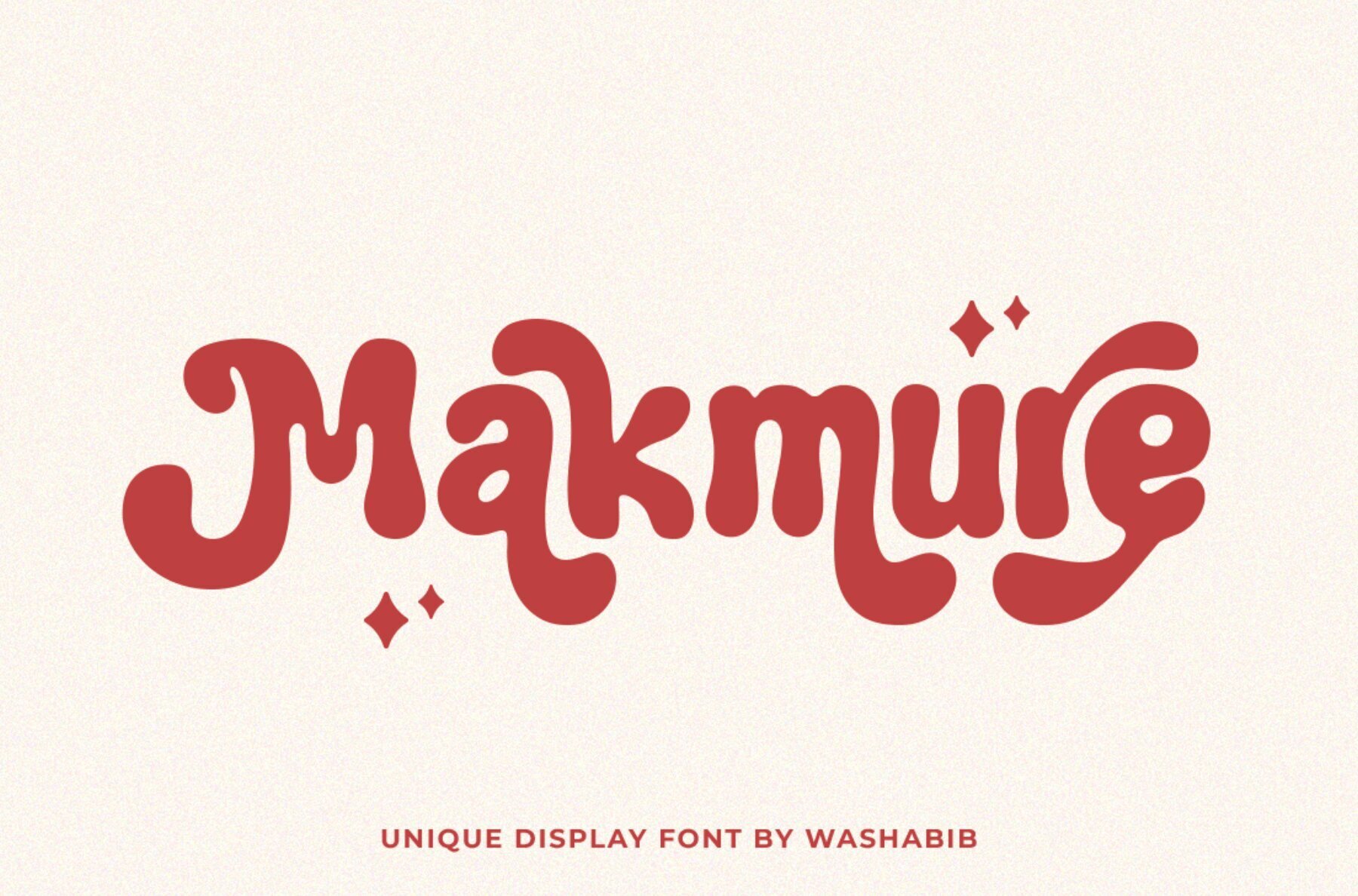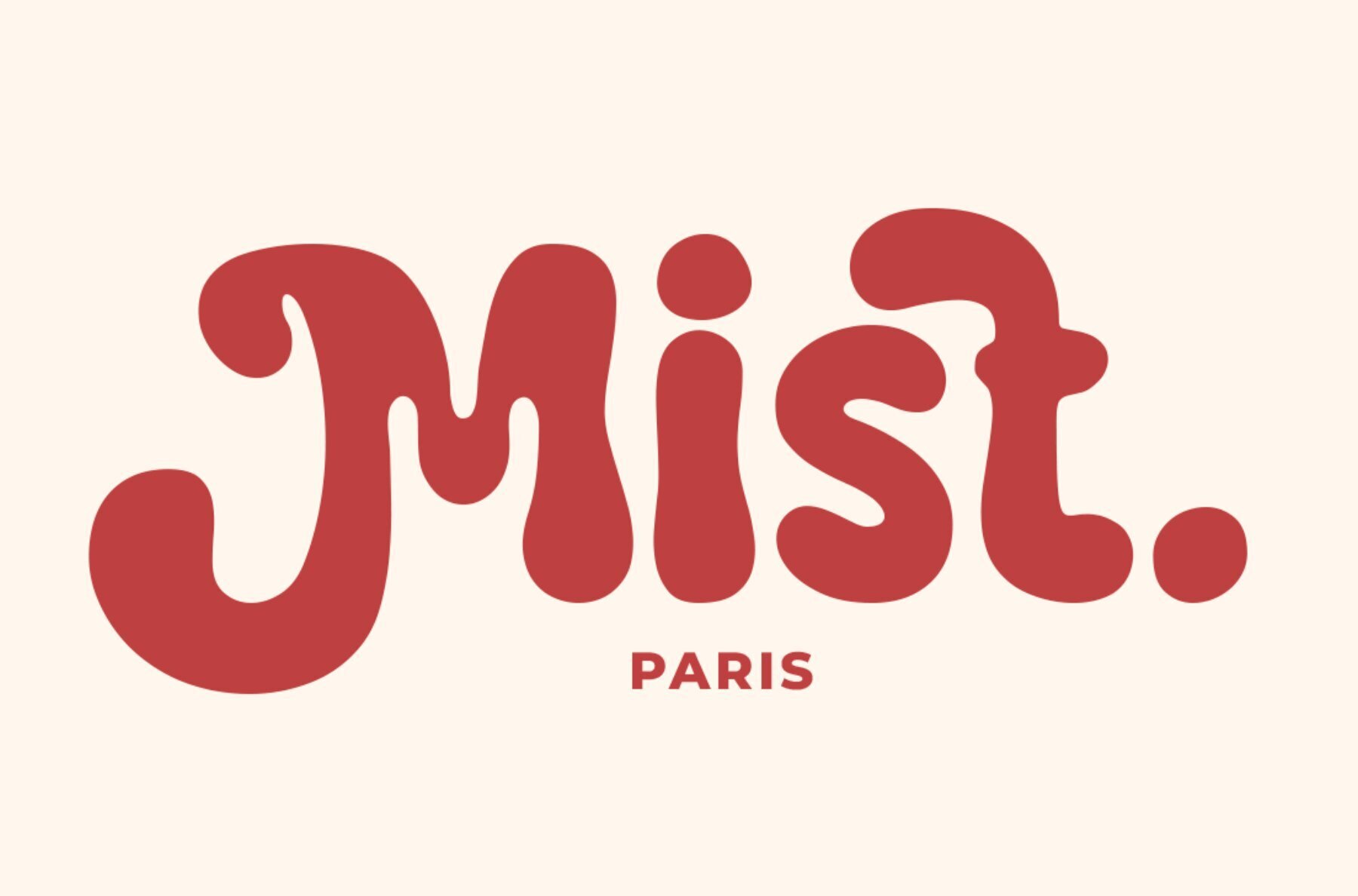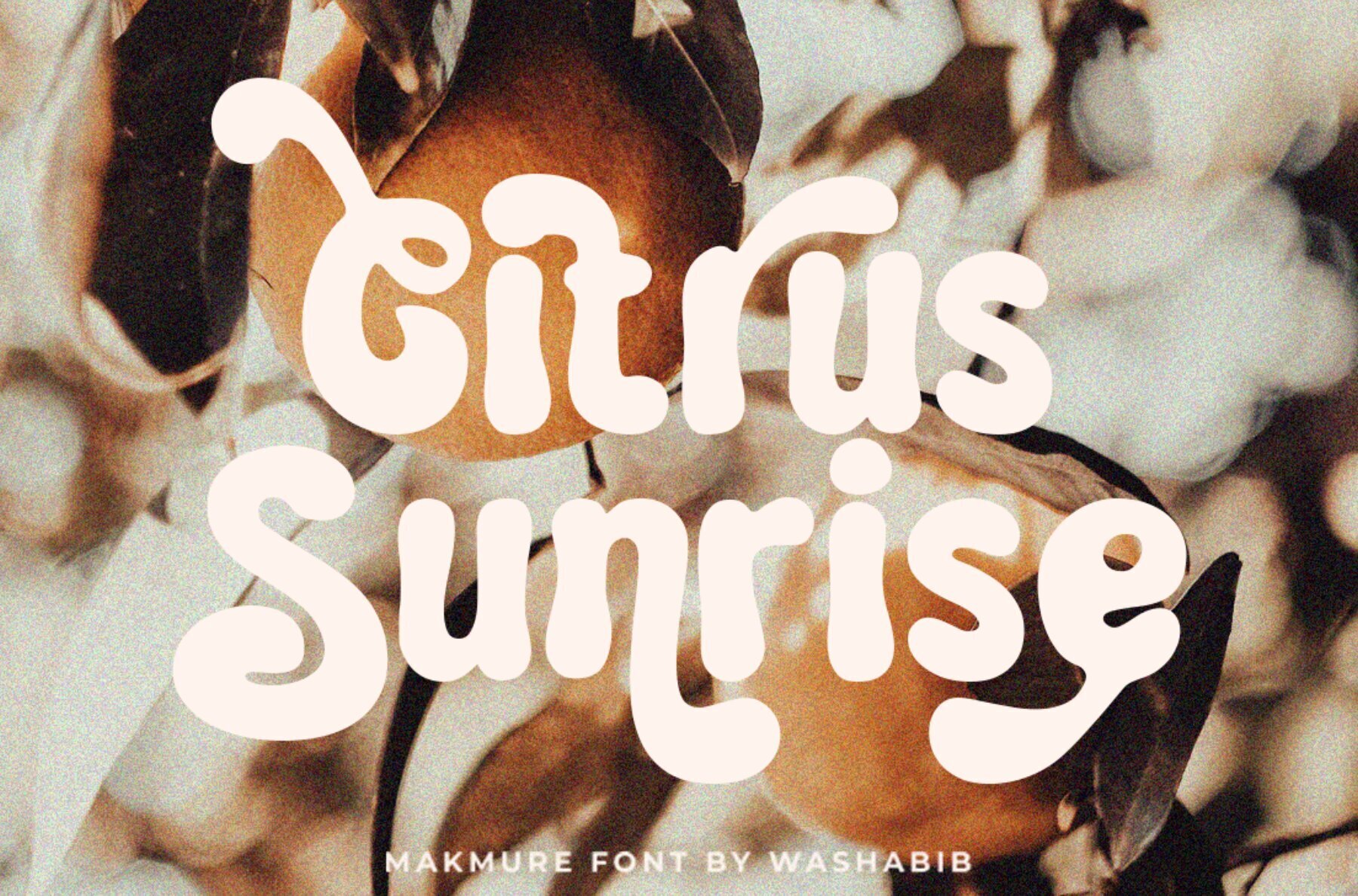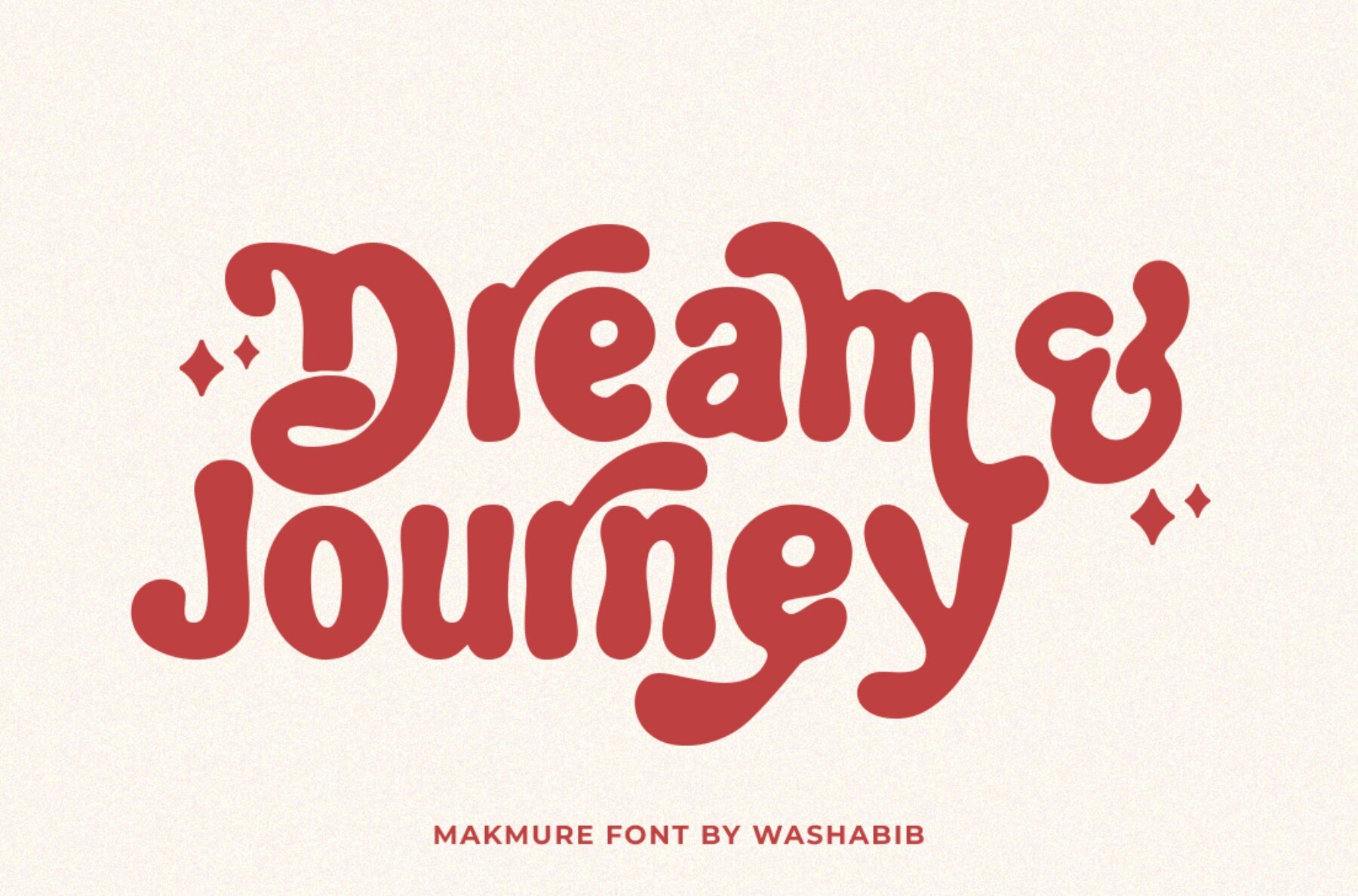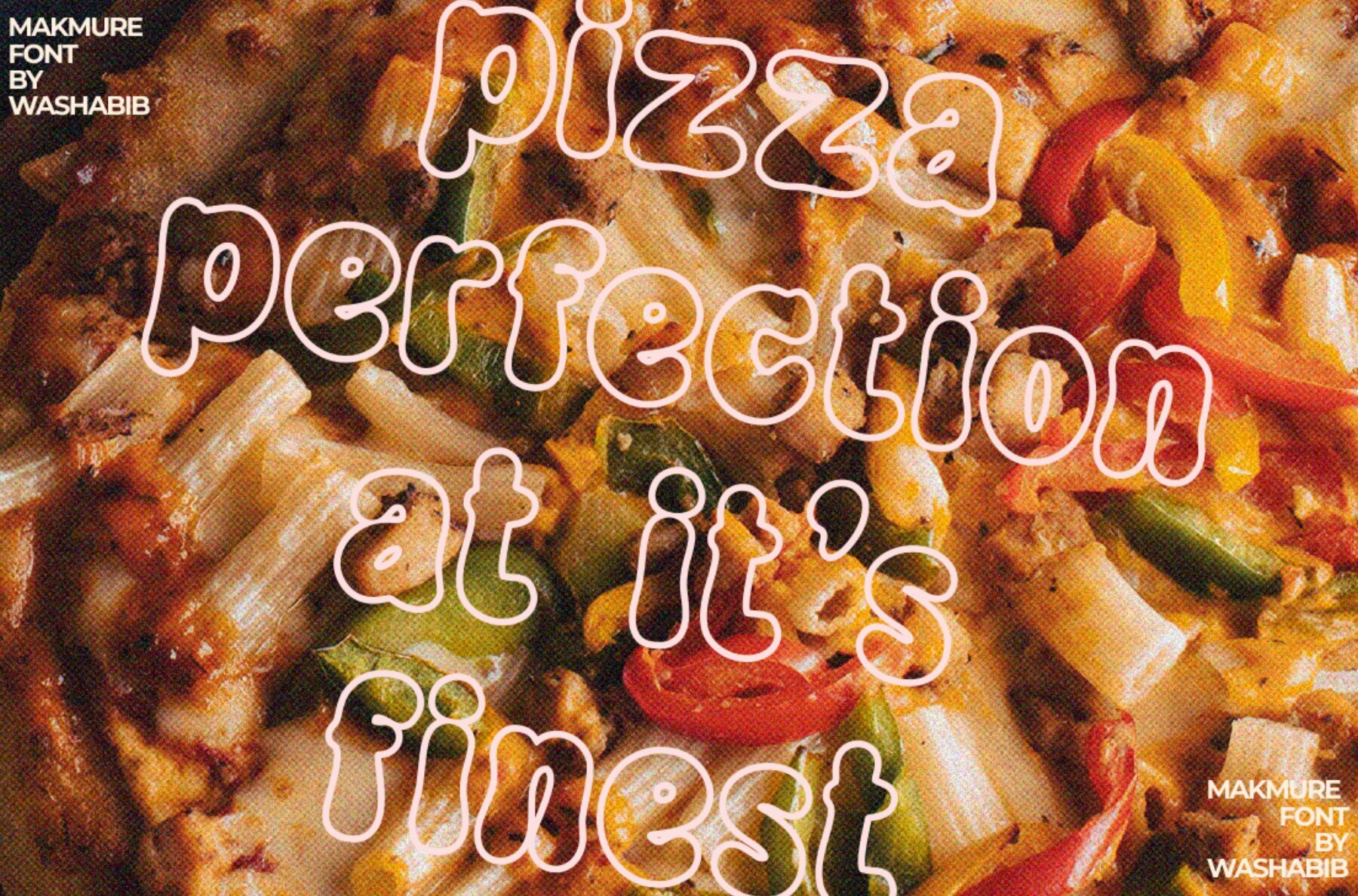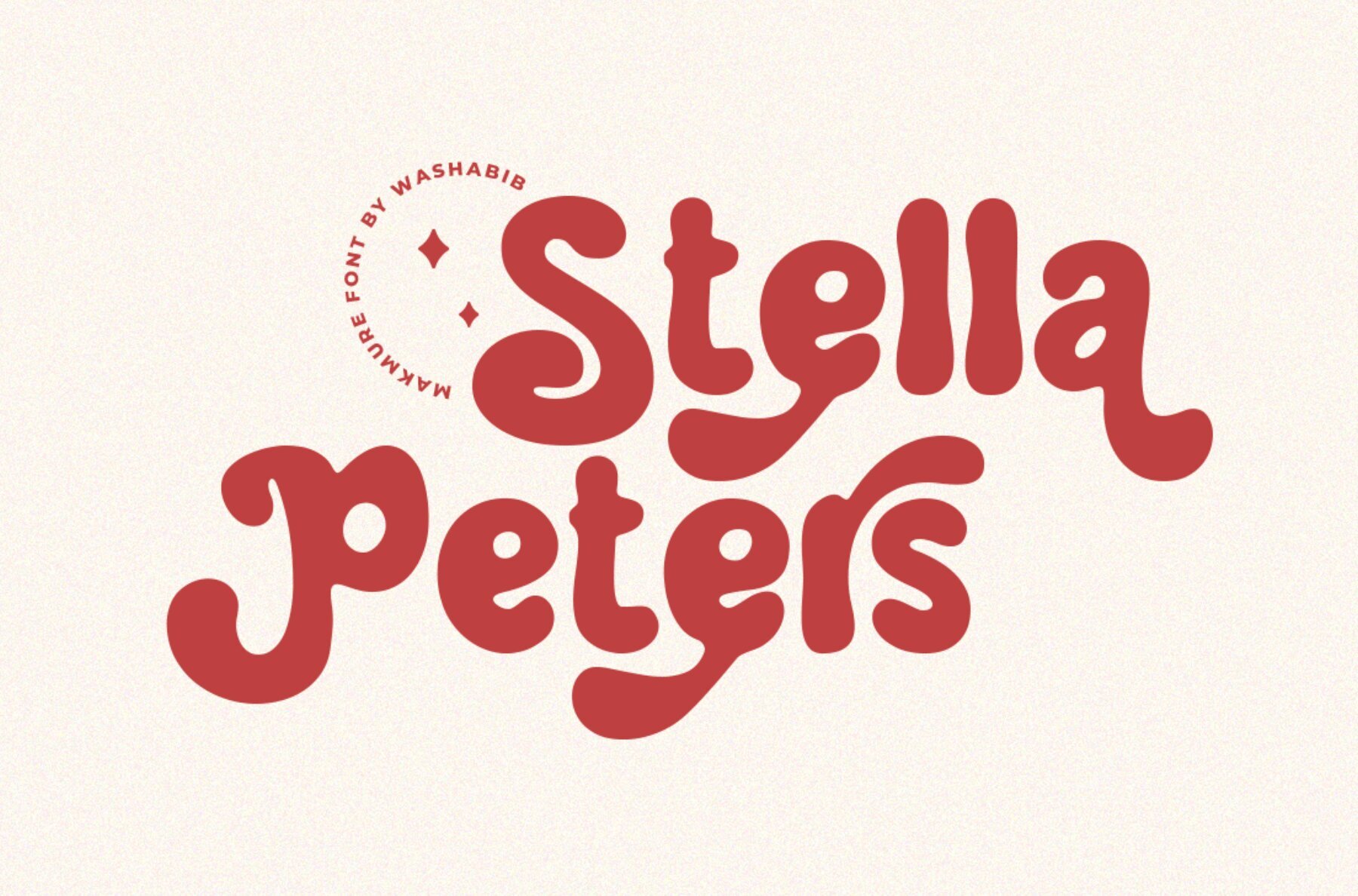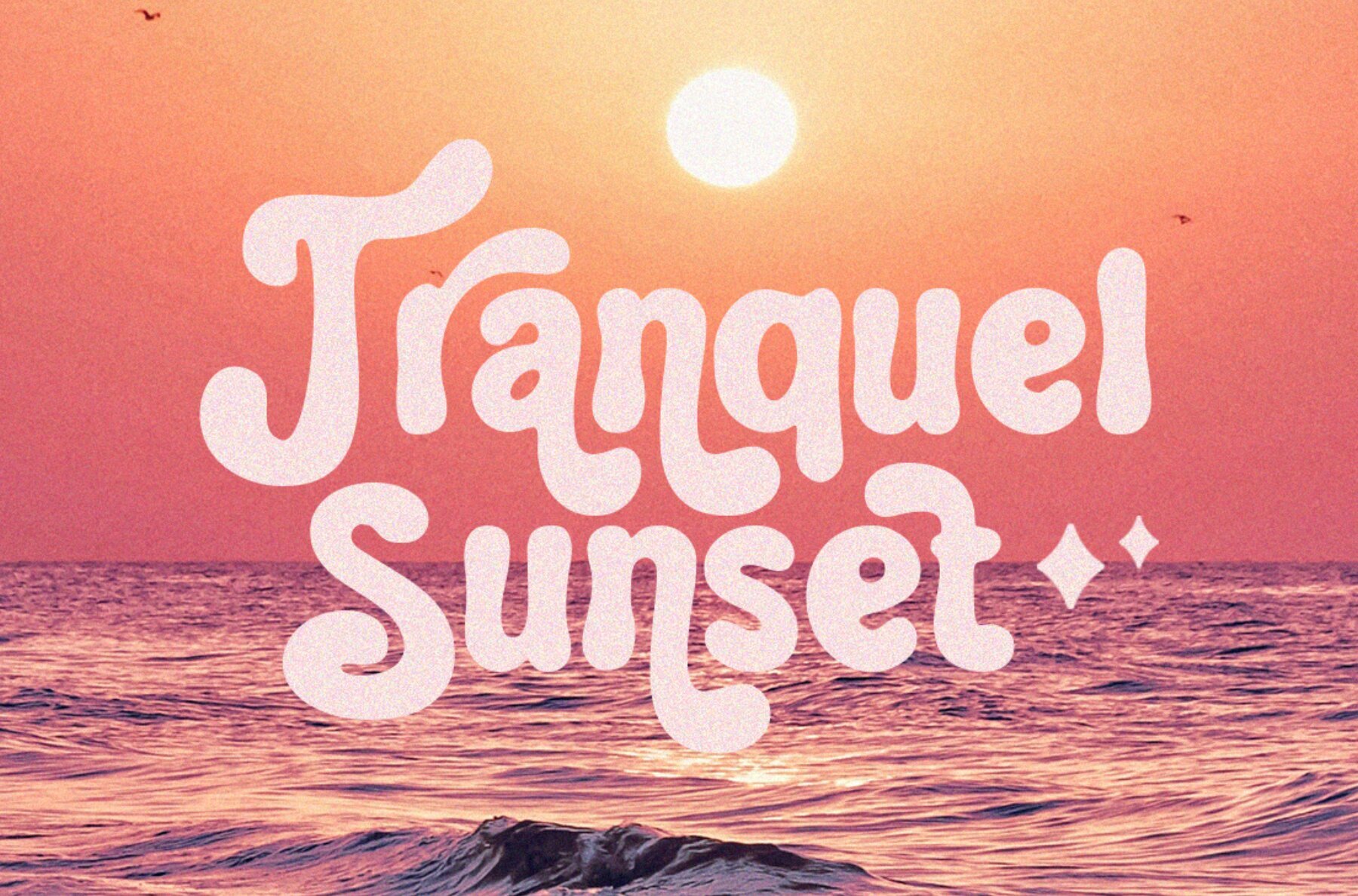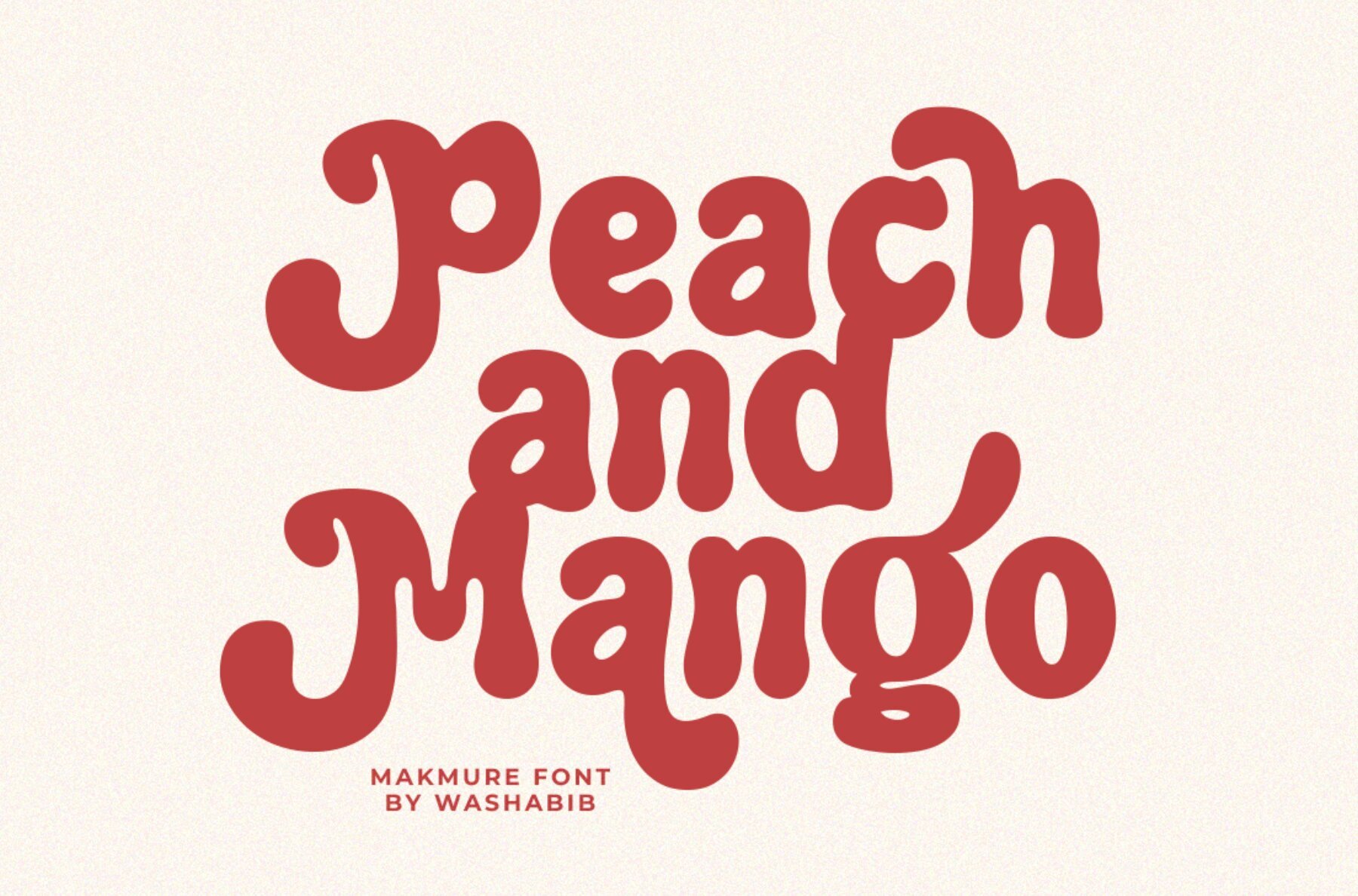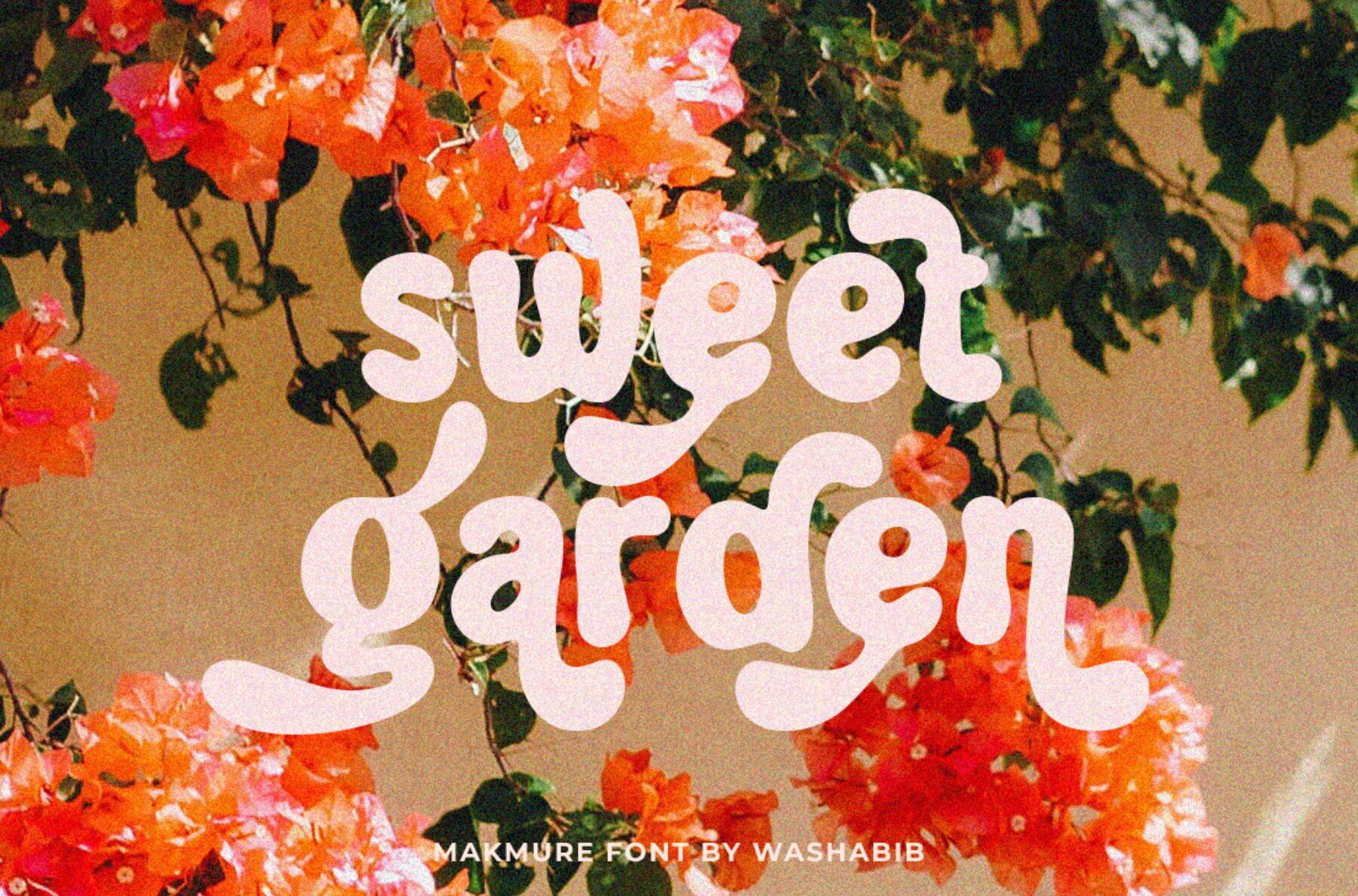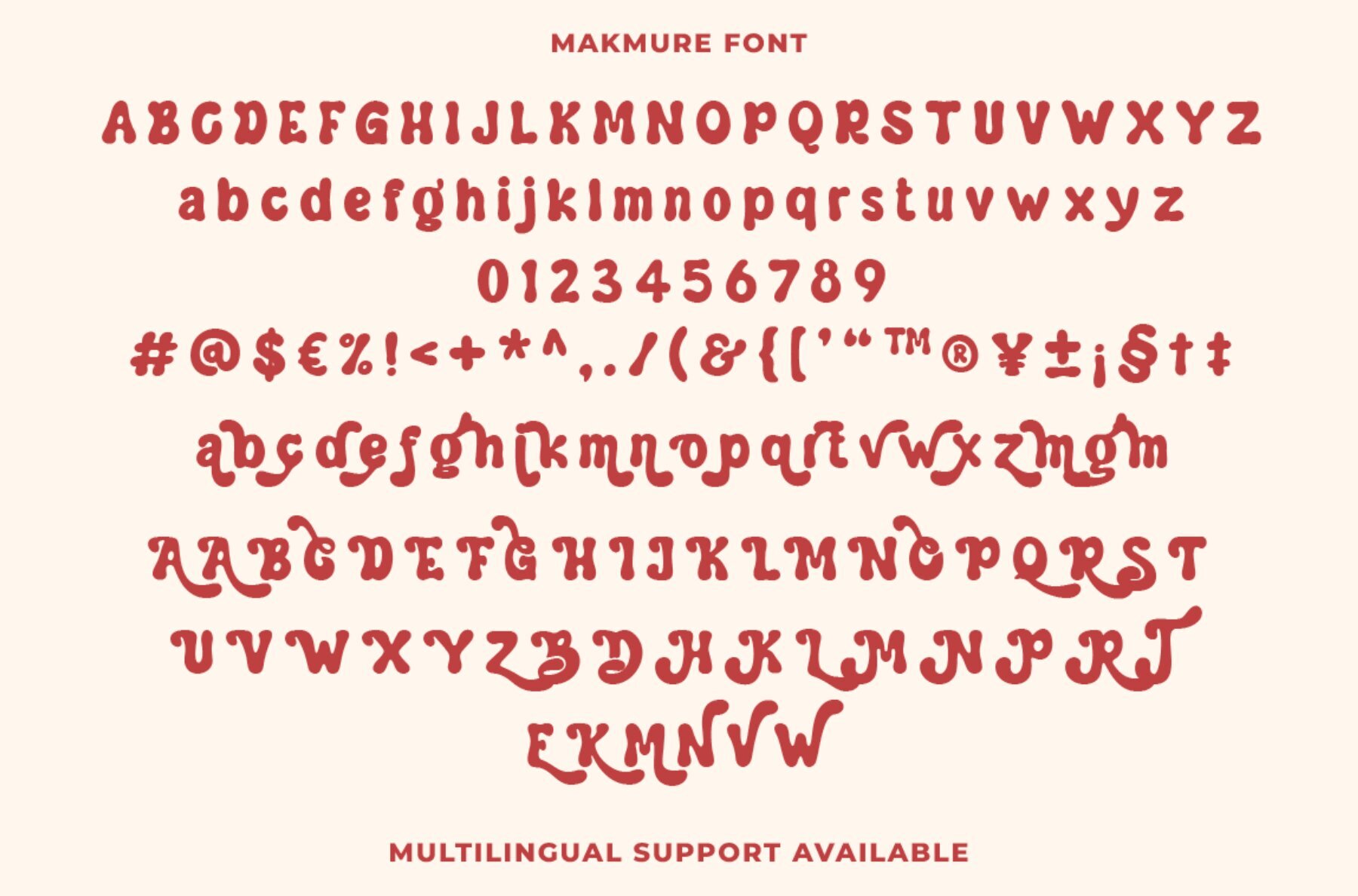
Makmure Font
Makmure Regular
Makmure is a distinctive display font characterized by its playful, hand-drawn style and chubby, engaging characters. Designed to add personality and charm to your work, this font features a variety of alternative characters to enhance your visual designs. Perfect for creating eye-catching branding materials, logos, social media posts, and posters, Makmure infuses a lively element into any project. Ideal for designers looking to inject fun and creativity beyond conventional typefaces.